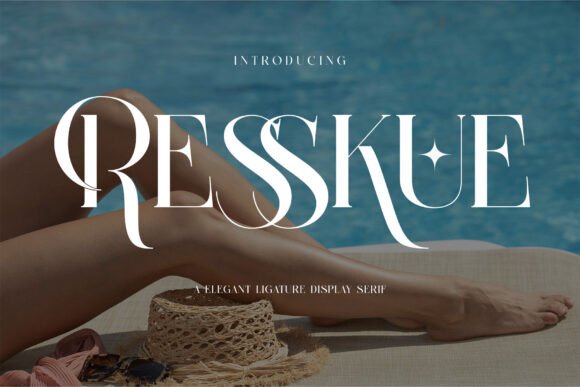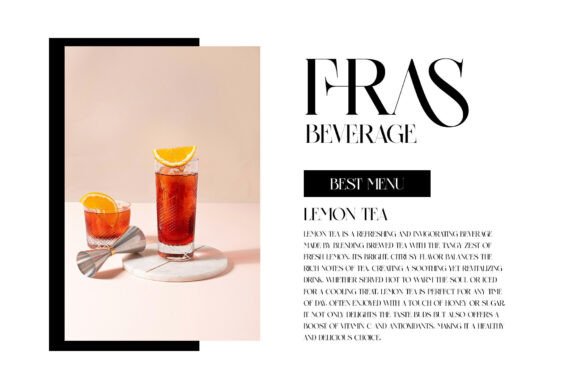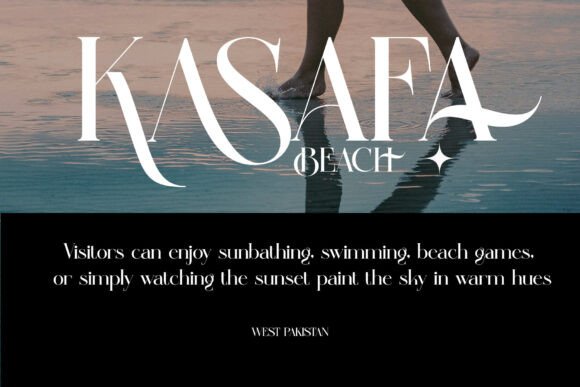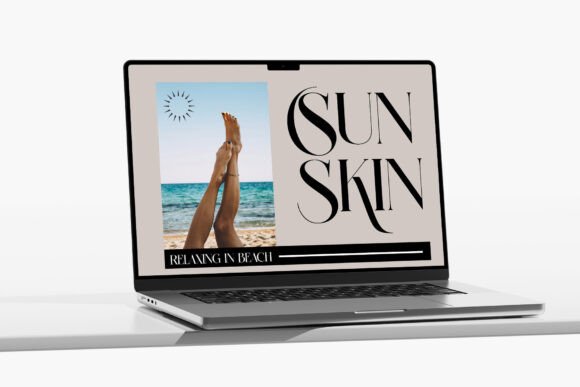
Resskue Font: Elegant Serif Typography for Modern Logo Design
About the Resskue Font
Meet Resskue Font, a stunning font that brings a touch of elegance and professionalism to any design. **RESSKUE** is a serif font designed with an elegant and modern touch, blending traditional beauty with innovative features. With its smooth lines and intricate details, RESSKUE offers a captivating sophistication, perfect for various designs aiming to convey a feminine, luxurious, and contemporary feel.
Each letter in RESSKUE is equipped with unique ligatures that not only enhance the artistic flair but also provide a sense of fluidity and refinement in every word. This feature makes RESSKUE ideal for design applications that require a balance of elegance and uniqueness, such as luxury branding, logos, wedding invitations, and modern graphic design projects.
RESSKUE exudes a sophisticated and timeless character, making it a perfect choice for projects that prioritize femininity and exclusivity. Its stylish, modern design is well-suited for industries such as fashion, beauty, jewelry, and high-end events. With RESSKUE, every word becomes a work of art full of meaning and elegance.